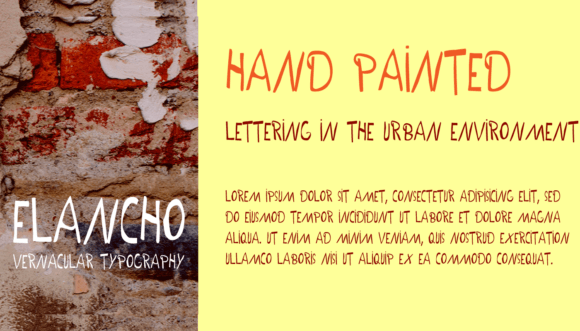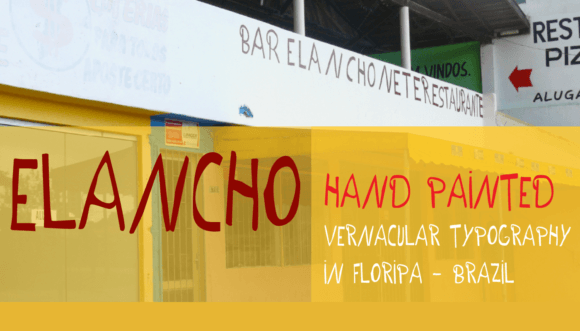
The Elancho Font: A Creative’s New Best Friend
I still remember the design project that led me to discover the Elancho font. I was working on a whimsical craft project, aiming to create a visually appealing invitation for a handmade market. I had a clear vision of what I wanted to achieve, but the font I was using just wasn’t cutting it. The text looked stiff, and my design felt flat. That’s when I stumbled upon Elancho, a vernacular handwritten typeface that instantly elevated my project. In this article, I’ll share my experience with Elancho, its characteristics, and how to make the most of this beautiful font.
An Honest Review of Elancho
What I Love About Elancho ✨
- ✅ Unique Character: Elancho has a distinct, handwritten feel that adds a personal touch to any design.
- ✅ Versatility: This font works well for both small sentences and single words, making it perfect for a variety of creative projects.
- ✅ Ease of Use: Elancho is straightforward to integrate into your designs, with an uncomplicated and clean structure.
- ✅ Aesthetically Pleasing: The font’s flowing lines and curves make it a joy to look at and work with.
- ⚠️ Limited Formality: Elancho’s casual, handwritten style might not be suitable for very formal or professional projects.
- ⚠️ Legibility at Small Sizes: Like many handwritten fonts, Elancho may become less legible when used at very small sizes.
The Backstory of Elancho
Elancho was created with the intention of capturing the essence of vernacular handwriting. The designer aimed to produce a font that feels both personal and approachable, suitable for a variety of creative applications. While the specific details of the font’s creation are not widely known, it’s clear that Elancho was designed to bring a touch of warmth and authenticity to designs.
Q: What type of projects is Elancho best suited for?
A: Elancho is ideal for crafty, creative projects such as invitations, handmade market materials, and social media graphics. Its casual, handwritten style makes it perfect for adding a personal touch.
Q: Is Elancho suitable for body text?
A: While Elancho can be used for body text, it’s primarily designed for headings and short sentences. For longer texts, a more traditional font might be more readable.
Q: Does Elancho support OpenType features?
A: Yes, Elancho supports OpenType features, including stylistic alternates and glyphs. This allows for a high degree of customization and creativity in your designs.